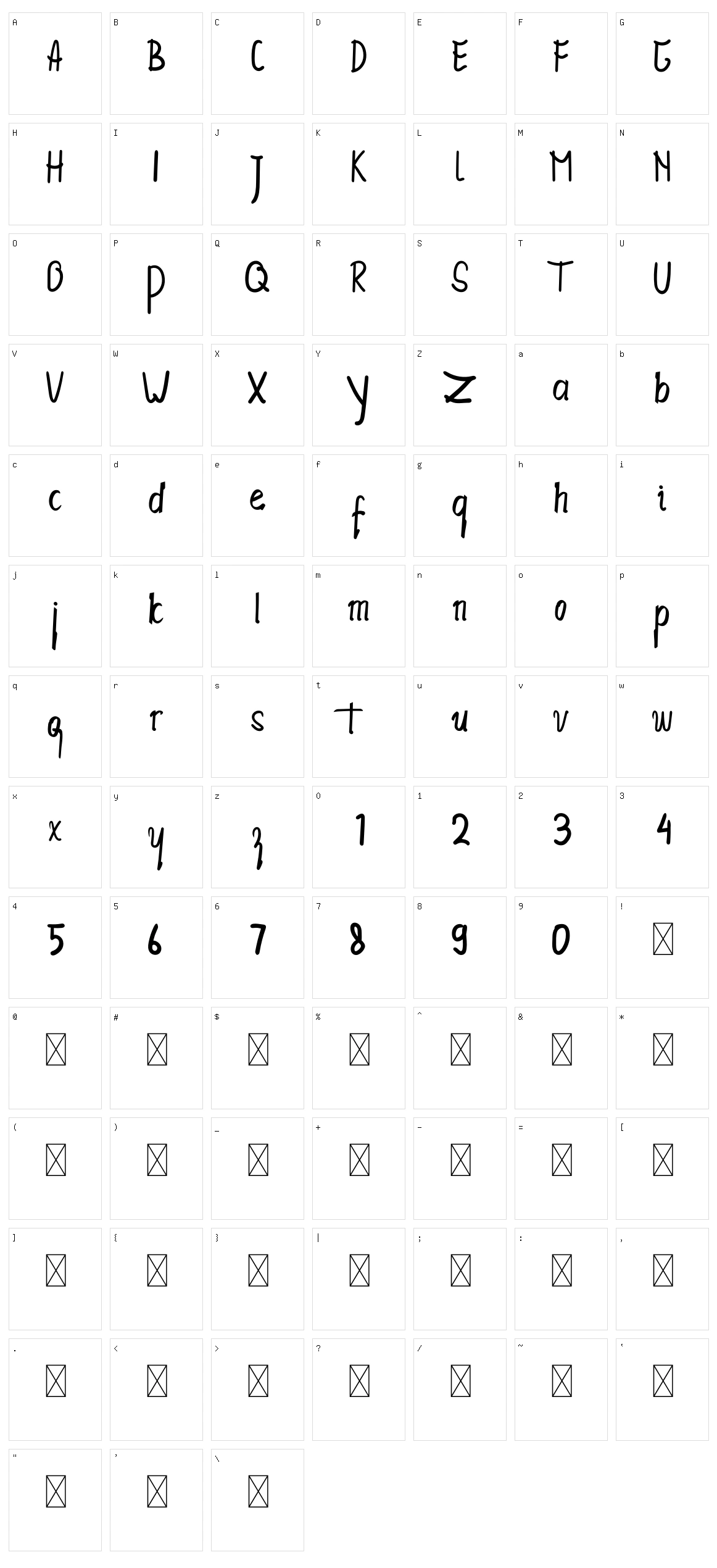
The free font Ubet Nduyo is carefully designed by Chamdan Chakim, showcasing a thoughtful balance of creativity and usability and falls under the Script font style. When you download the ZIP file, it contains only 40.62 KB of font files, making it lightweight and quick to download. Please review the license details below to understand permitted usage and distribution rights. If license information is not available, we recommend using this font for personal projects only or contacting the author directly for commercial usage permissions.